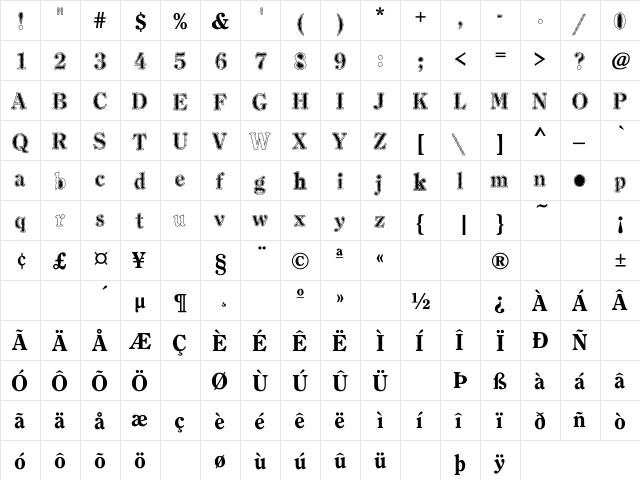
BUMP N GRIND Regular
Design Context for BUMP N GRIND Typeface
BUMP N GRIND takes a measured approach to typography — its balanced proportions and neutral character make it a reliable workhorse for both digital and print work.